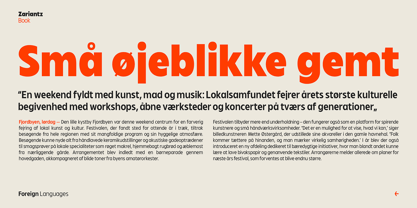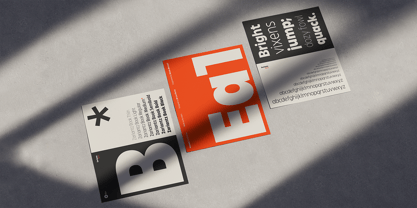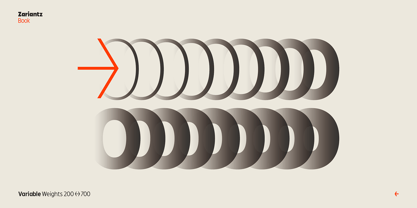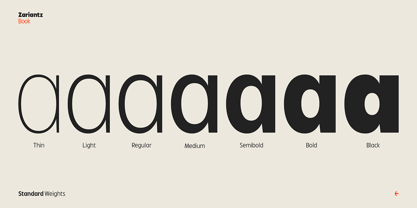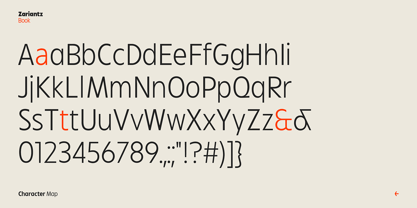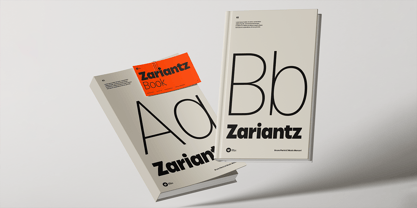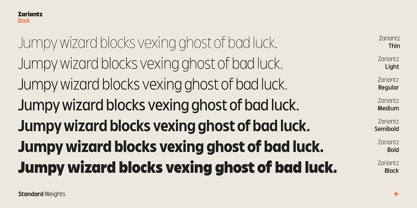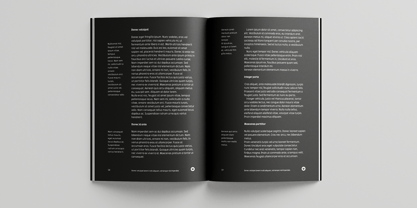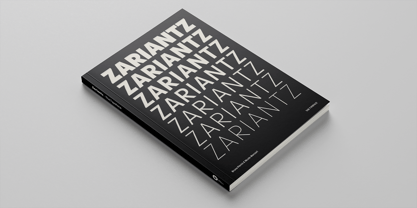
Zariantz Book
Zariantz Book is a versatile sans serif variable typeface designed for clarity, precision, and expressive detail. Built around a balanced “book” weight, it delivers a clean and contemporary voice suited for both editorial and digital environments.
Zariantz Book includes old-style figures, case-sensitive forms, alternate glyphs, ligatures, and full multilingual support. Designers can seamlessly set fractions with numerators and denominators (0–9), while a distinctive set of multidirectional arrows adds utility and character to complex layouts. Every feature is carefully crafted to ensure typographic excellence, making Zariantz Book not just a font, but a professional-grade typeface—ready to adapt across branding, publishing, and interface design with confidence and flexibility.
This release expands the Zariantz type family, first introduced with Zariantz Grotesk Variable, a condensed contemporary sans serif inspired by the streets of Casamassima, Puglia. Where Grotesk offered narrow impact, Zariantz Book opens the rhythm—bringing balance, readability, and versatility to a growing, humanist-driven type family.